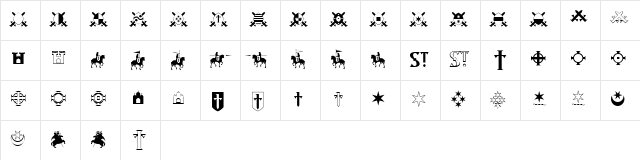
Archangel Regular Free Font
Archangel Regular
Design Context for Archangel
Archangel is a composed and adaptable typeface that performs quietly and consistently across a wide range of design contexts.